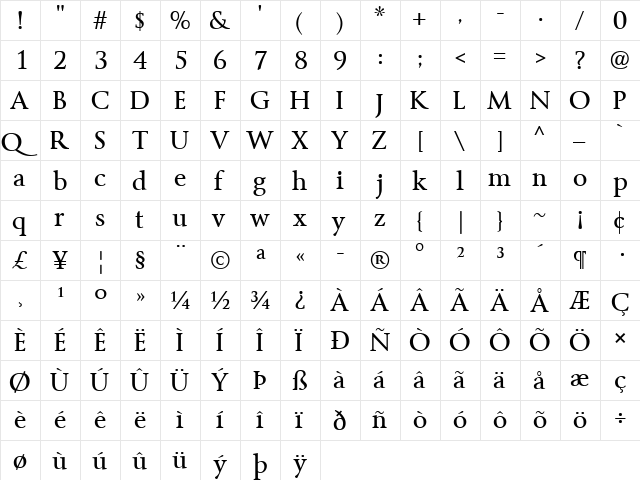
Byington Regular
Design Context for Byington Typeface
Byington takes a measured approach to typography — its balanced proportions and neutral character make it a reliable workhorse for both digital and print work.
Pro Tip: Use Byington in both headline and body roles to test its range before committing to a single application.